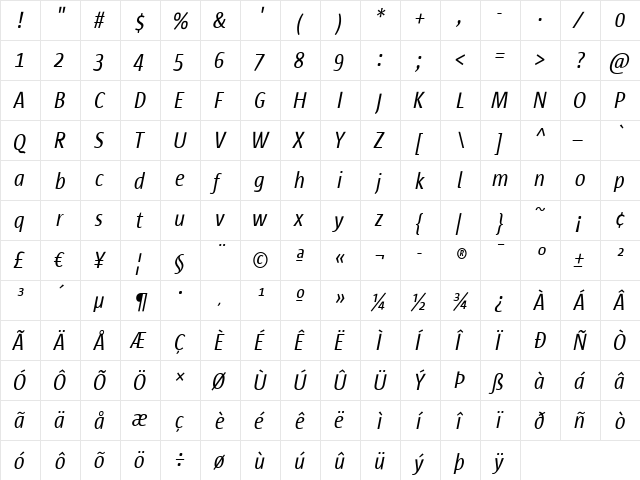
Sun Sans Condensed- SunSansCondensed Italic
SunSansCondensed Italic · Luc[as] de Groot Exclusively for Sun Microsystems  ·
Design Context for Sun Sans Condensed- Typeface
Sun Sans Condensed- offers clean, dependable letterforms without strong stylistic allegiance, making it a practical choice for designers who need flexibility. The slanted form adds forward momentum and visual energy. The condensed width makes it efficient for tight spaces without sacrificing legibility.
Pro Tip: Use Sun Sans Condensed- for emphasis, pull quotes, and subheadings where its slanted energy can add rhythm to the layout.